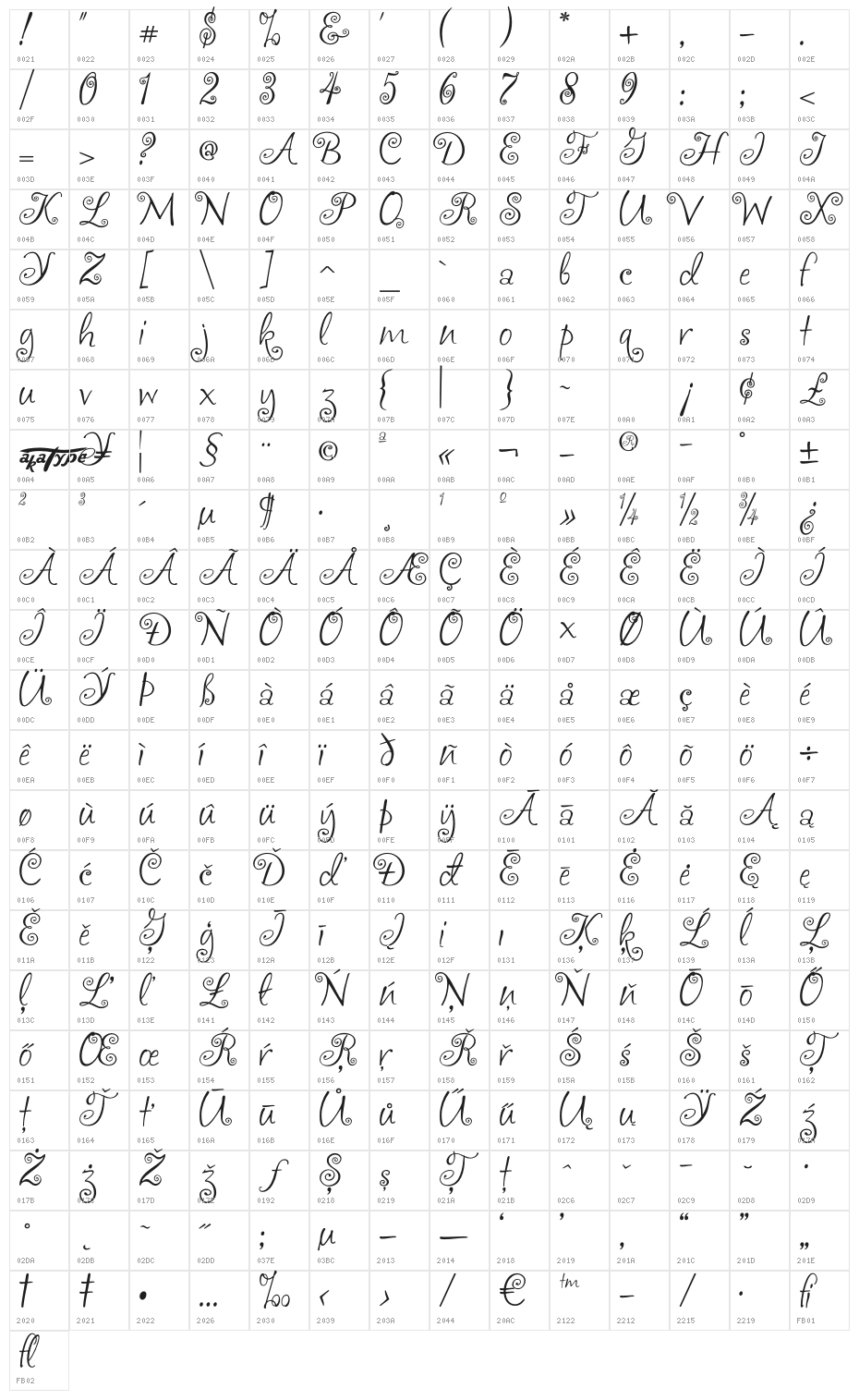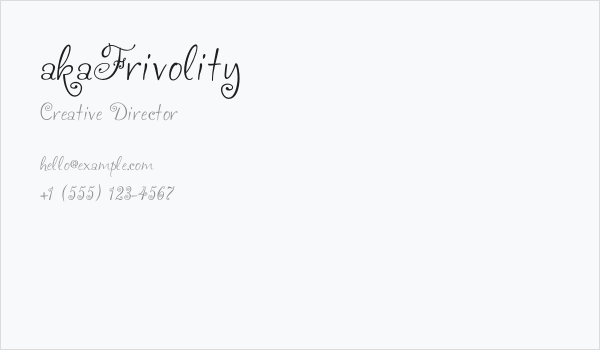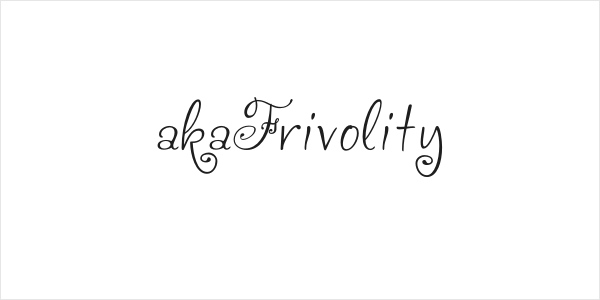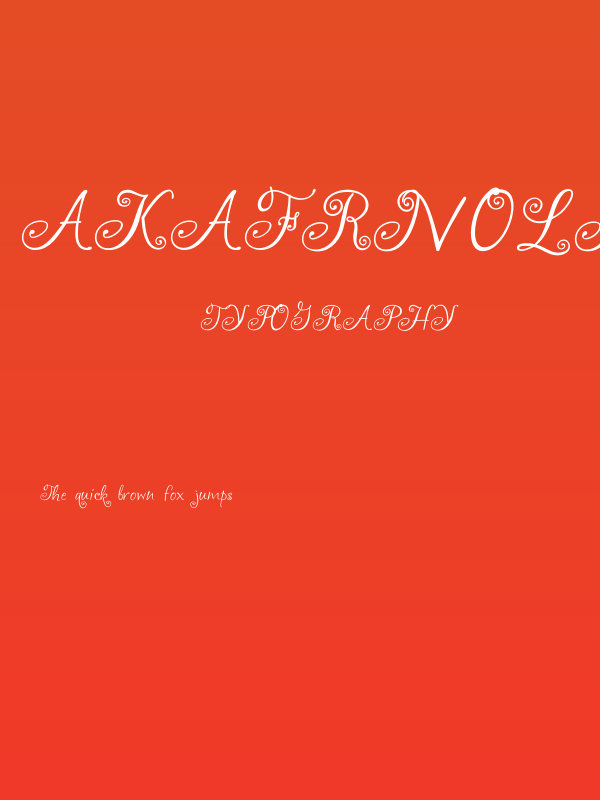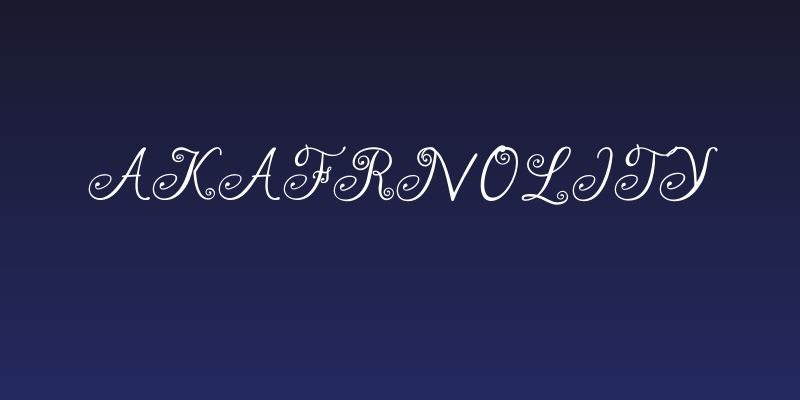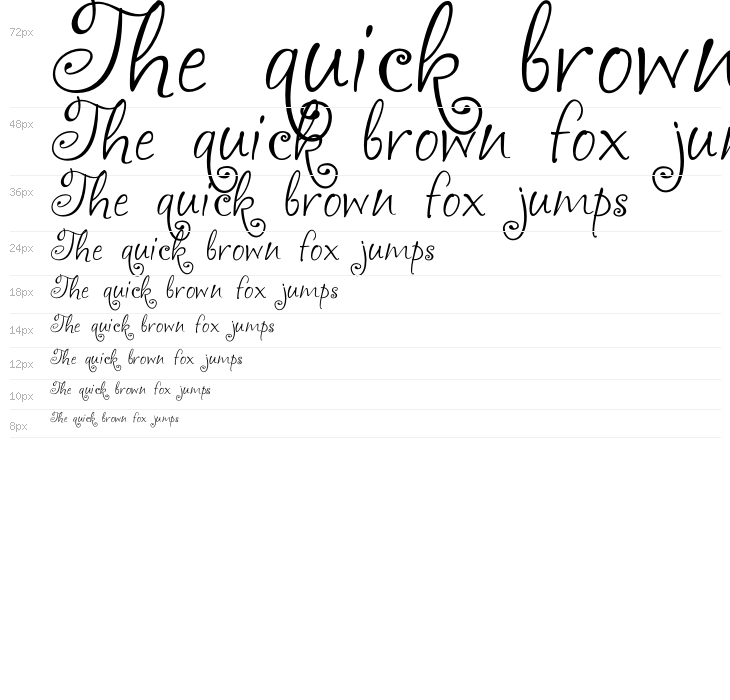
akaFrivolity Font
akaFrivolity Description
This font features an elegant and whimsical script style, characterized by its flowing, cursive letters with playful swirls and loops. The uppercase letters are particularly ornate, with intricate curls that add a sense of movement and grace. The lowercase letters maintain a consistent style, offering a harmonious blend of readability and decorative flair. Numbers and special characters are designed with similar embellishments, ensuring a cohesive look across all glyphs. The overall design is both sophisticated and lively, making it suitable for creative and artistic projects.
Use CaseLogos, Invitations, Artistic projects
Proposed ProjectsIdeal for wedding invitations, greeting cards, branding, and artistic projects requiring a touch of elegance and creativity.